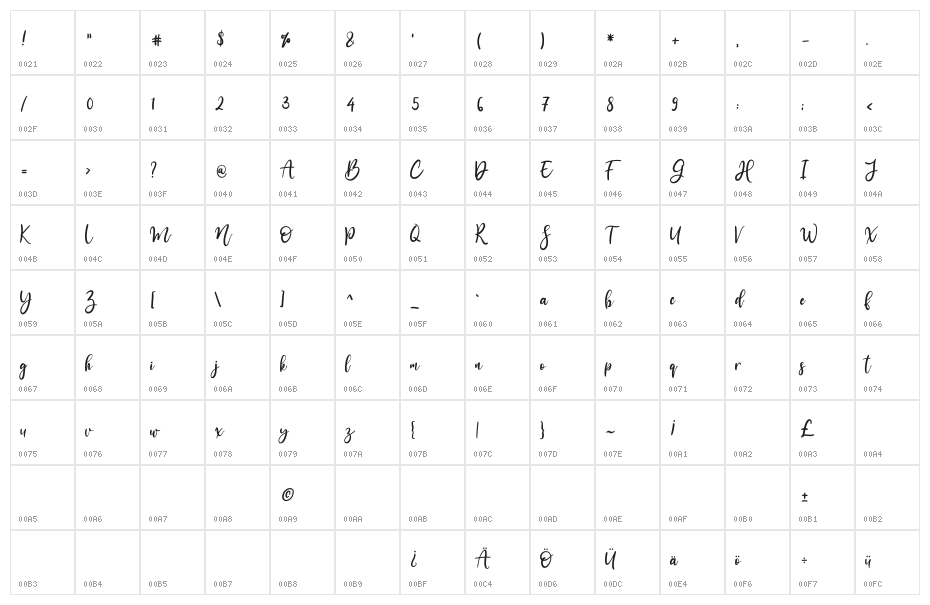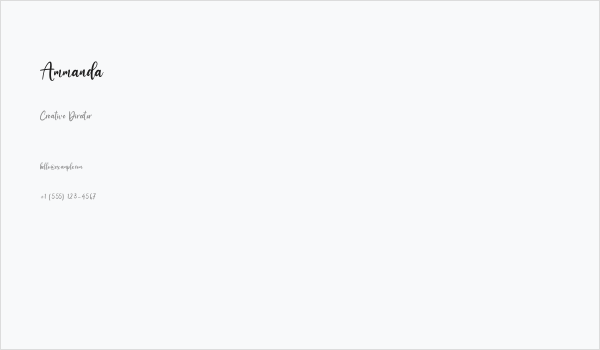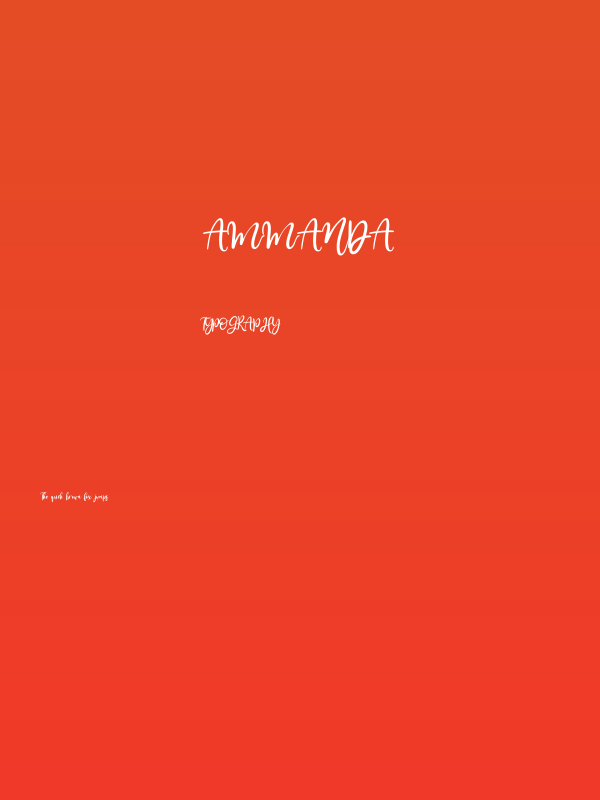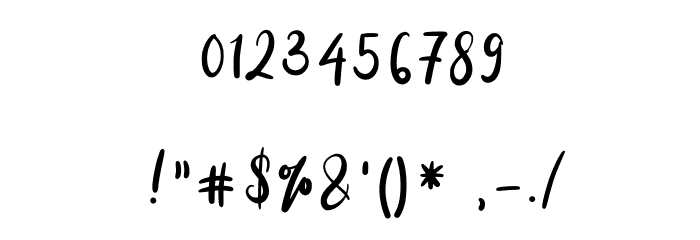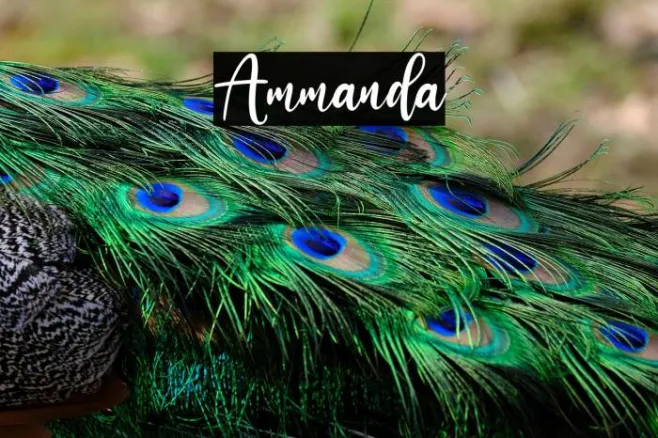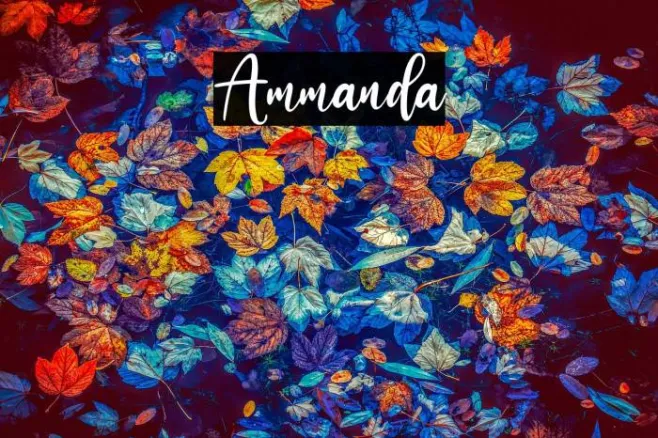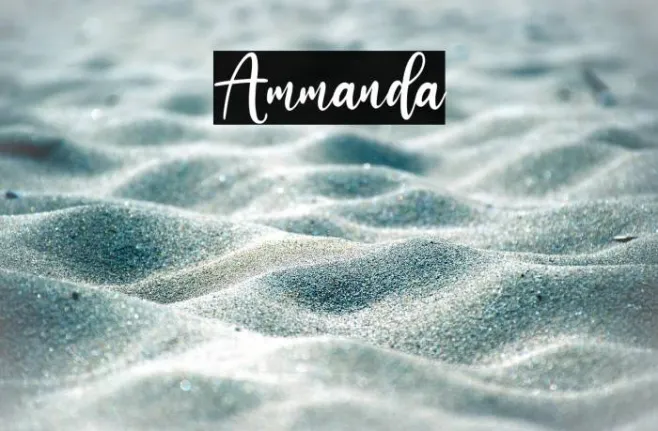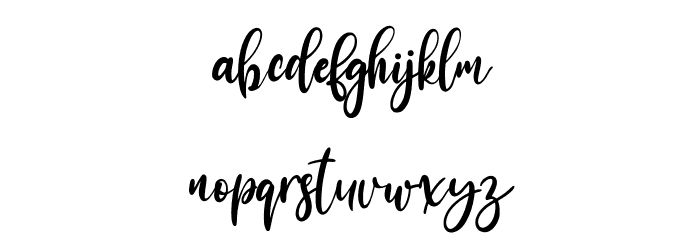
Ammanda Font
Ammanda Description
This font features a flowing, cursive style that exudes elegance and charm. The letters are interconnected with smooth, sweeping strokes, giving it a handwritten appearance. The uppercase letters are bold and prominent, while the lowercase letters maintain a consistent fluidity. Numbers and special characters are designed with the same artistic flair, ensuring a cohesive look across all elements. The font's overall aesthetic is both modern and timeless, making it versatile for various design needs.